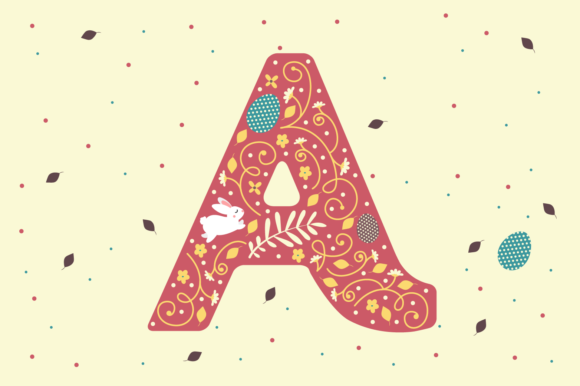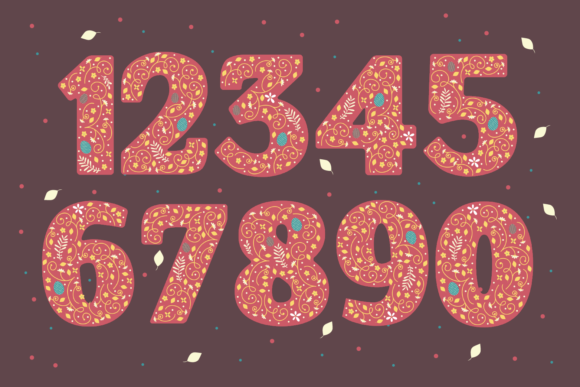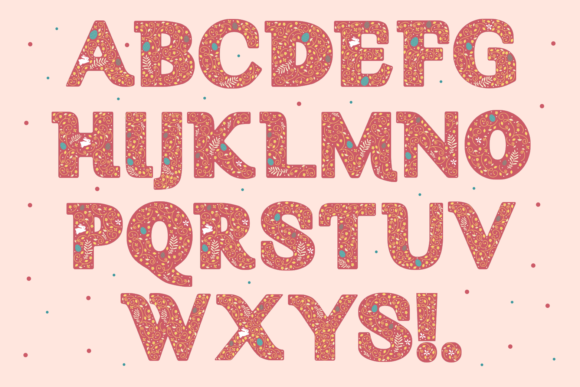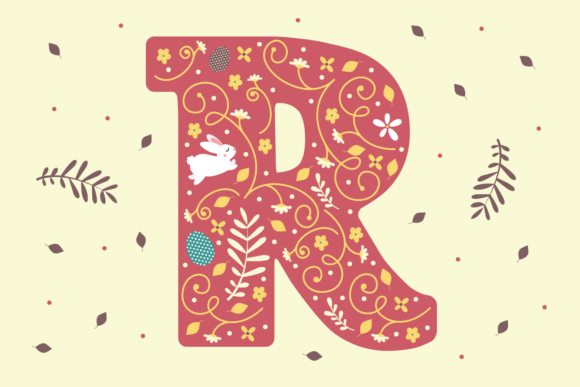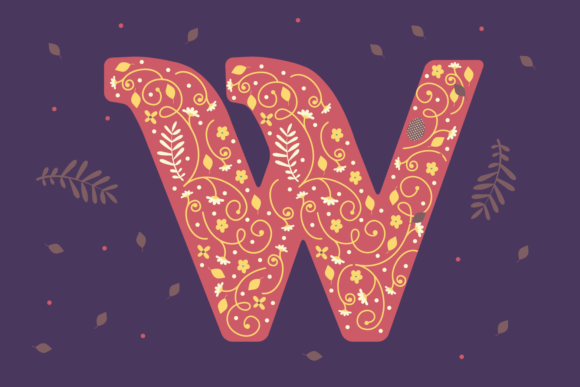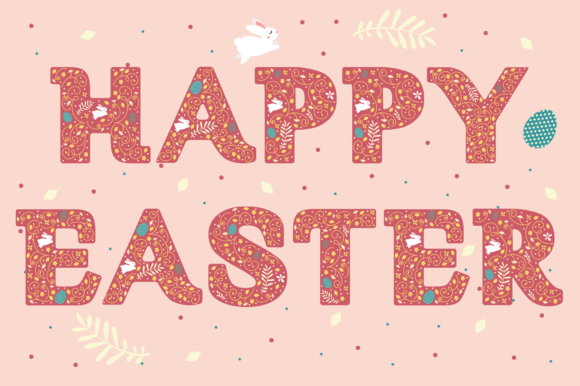
Spring into Creativity with Easter Font
Have you ever stared at a blank canvas, feeling the weight of an upcoming project deadline, and suddenly, a burst of colorful inspiration hits you? Maybe it’s the sound of children’s laughter, the smell of freshly baked cookies, or the sight of a blooming garden that sparks your creativity. Whatever it is, we’ve all been there – and it’s moments like these that remind us why we love being designers.
One of the most exciting times of the year is Easter, and it’s the perfect opportunity to get creative with Easter Font. This gorgeous modern typography is a treasure trove of Easter decorations, waiting to add a touch of festivity to your designs. Whether you’re working on a greeting card, a social media campaign, or a children’s book, Easter Font is the perfect tool to bring your ideas to life.
As a designer, you know how valuable it is to have the right tools at your disposal. That’s why Easter Font is a game-changer – it’s a one-stop-shop for all your Easter-themed design needs, and it’s sure to put a smile on your clients’ faces (and your own, too!)
Easter Font Key Features
- Unique Characteristics: Easter Font features a unique, hand-drawn design with intricate details and ornaments, making it ideal for use in Easter-themed designs, invitations, and other celebrations.
Easter Font Review
I was excited to dive into the Easter Font, and I have to say, it’s a unique addition to any design project. ✨ The font’s playful and whimsical nature immediately caught my attention, and I appreciate how it can add a touch of festivity to any design. The Easter Font is perfect for creating eye-catching promotions, invitations, and social media posts.
- The Easter Font is highly customizable, allowing users to adjust font sizes, colors, and effects to suit their design needs.
- The font is suitable for a wide range of projects, from birthday invitations to Easter-themed advertisements.
However, there are some limitations to consider. ⚠️ The font may not be the best choice for formal or professional designs, as its playful nature may come across as immature. Additionally, some users may find the font’s bold and colorful aesthetic overwhelming.
Overall, I think the Easter Font is a great addition to any designer’s toolkit. While it may have some limitations, its versatility and customizability make it a valuable resource for designers looking to add some flair to their projects.
Tips for Getting the Most Out of the Easter Font
To get the most out of the Easter Font, try the following:
- Use the font in combination with Easter-themed graphics and images.
- Experiment with different font sizes, colors, and styles to create a unique look.
- Use the font to create a cohesive Easter-themed design across multiple elements.
The Easter Font is perfect for:
- Easter-themed invitations and party decorations.